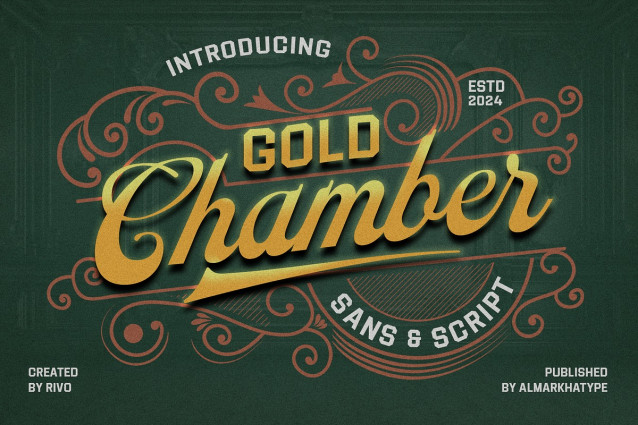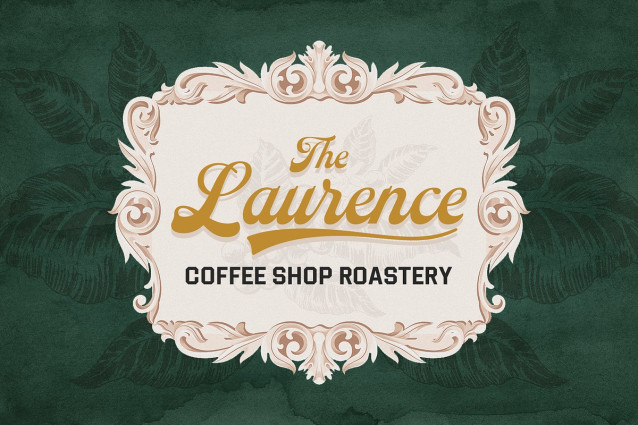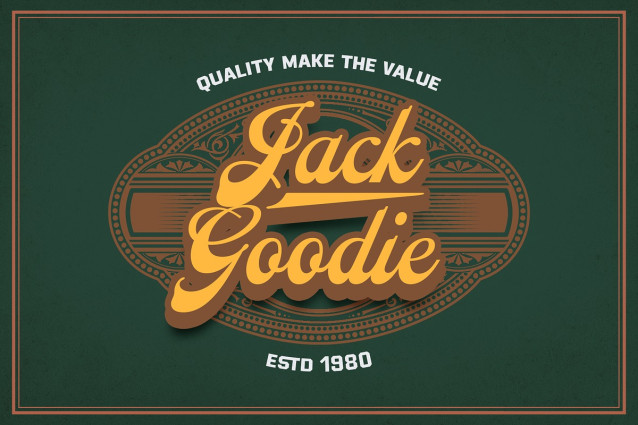
Gold Chamber Sans Font Duo
Gold Chamber Sans Font Duo a dynamic and robust set of fonts inspired by vintage labels of the past. This collection evokes the mechanical charm and industrious spirit of yesteryear, offering versatility and strength for your design needs